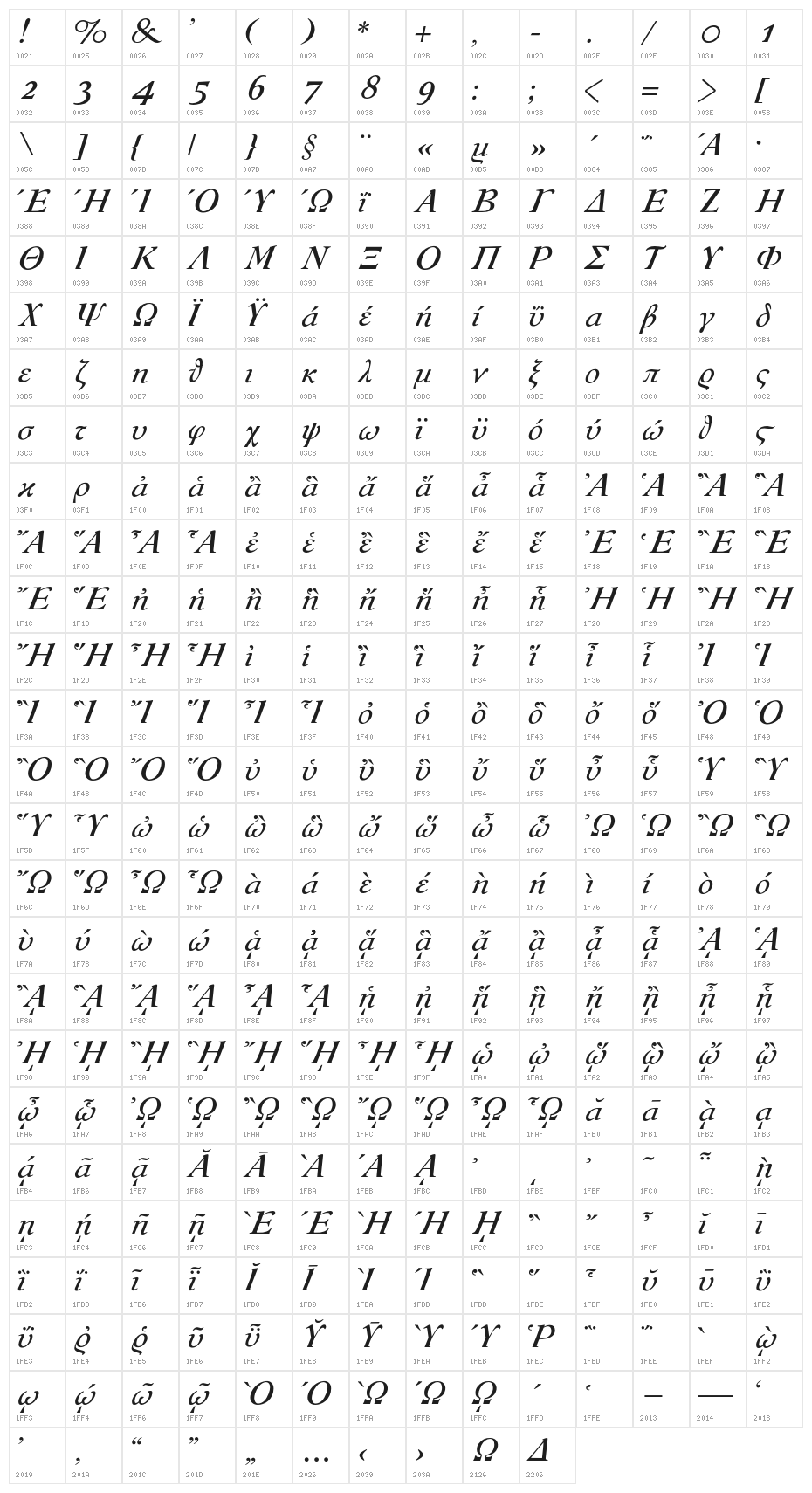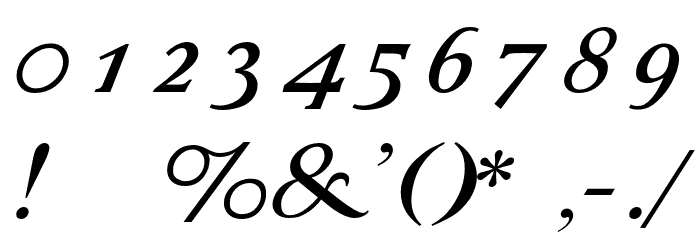
GFSPyrsos-Regular Font
GFSPyrsos-Regular Description
This font exhibits a classic and elegant style, characterized by its flowing and slightly cursive letterforms. The numerals and special characters maintain a consistent aesthetic, with smooth curves and a slight slant that adds a sense of motion and sophistication. The overall appearance is refined, making it suitable for formal and traditional applications. The characters are well-proportioned, with a moderate contrast between thick and thin strokes, enhancing readability while maintaining an artistic flair. The font's design is reminiscent of historical scripts, yet it retains a modern touch that makes it versatile for various design needs.
| Use Case | Headlines, Invitations, Branding |
| Proposed Projects | Ideal for wedding invitations, formal event programs, elegant branding, and classic book covers. |